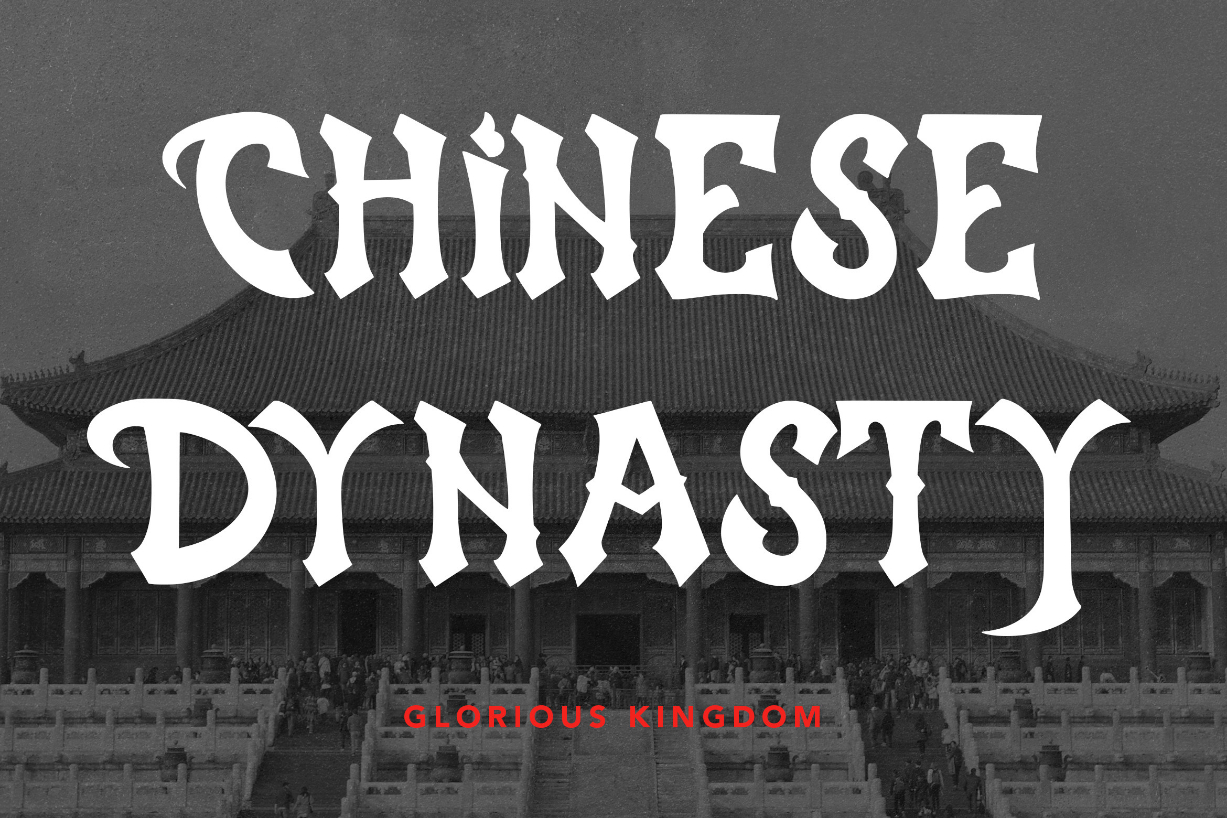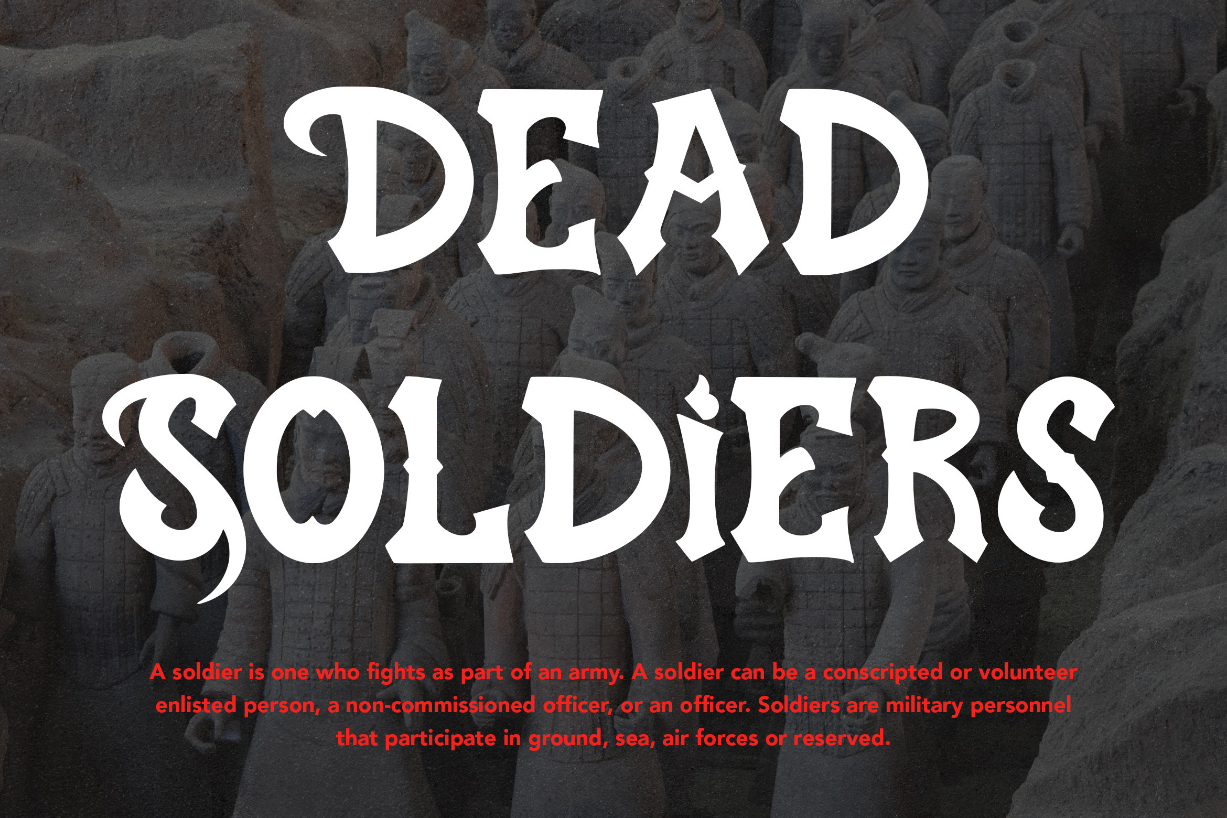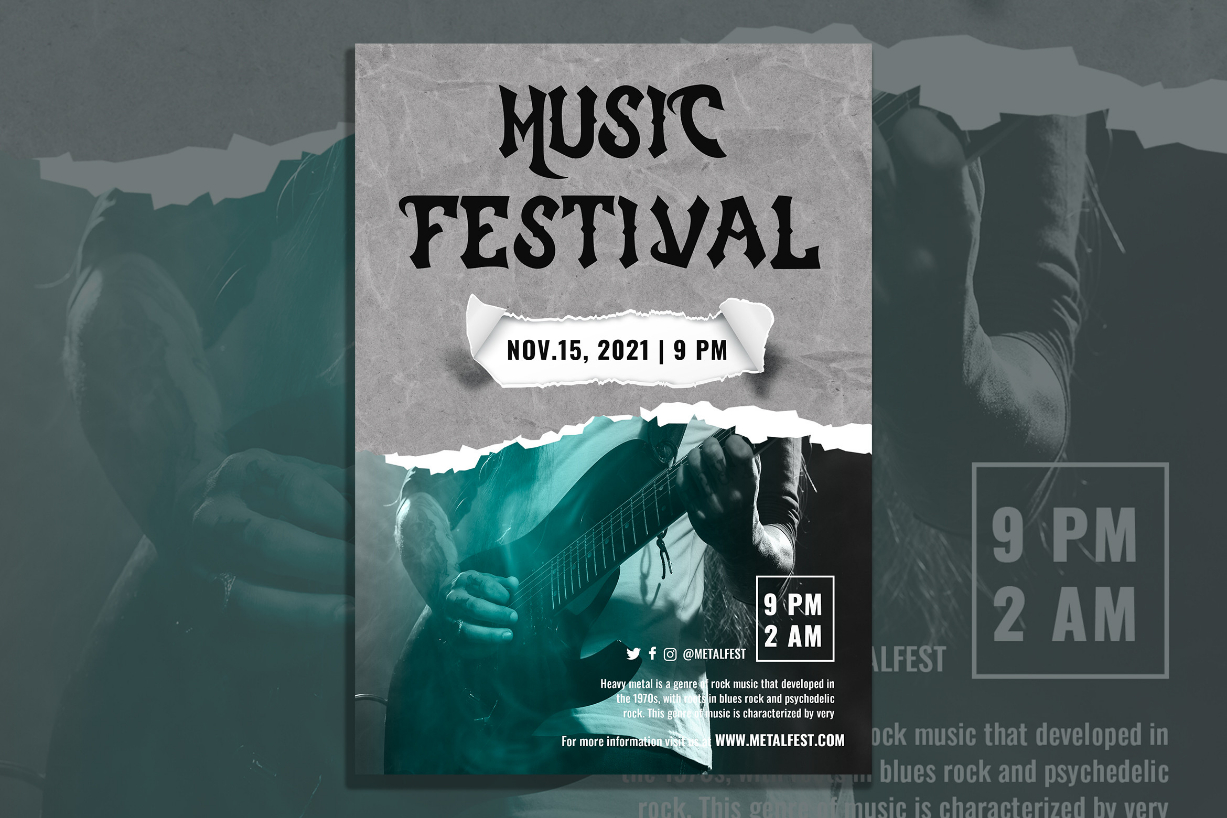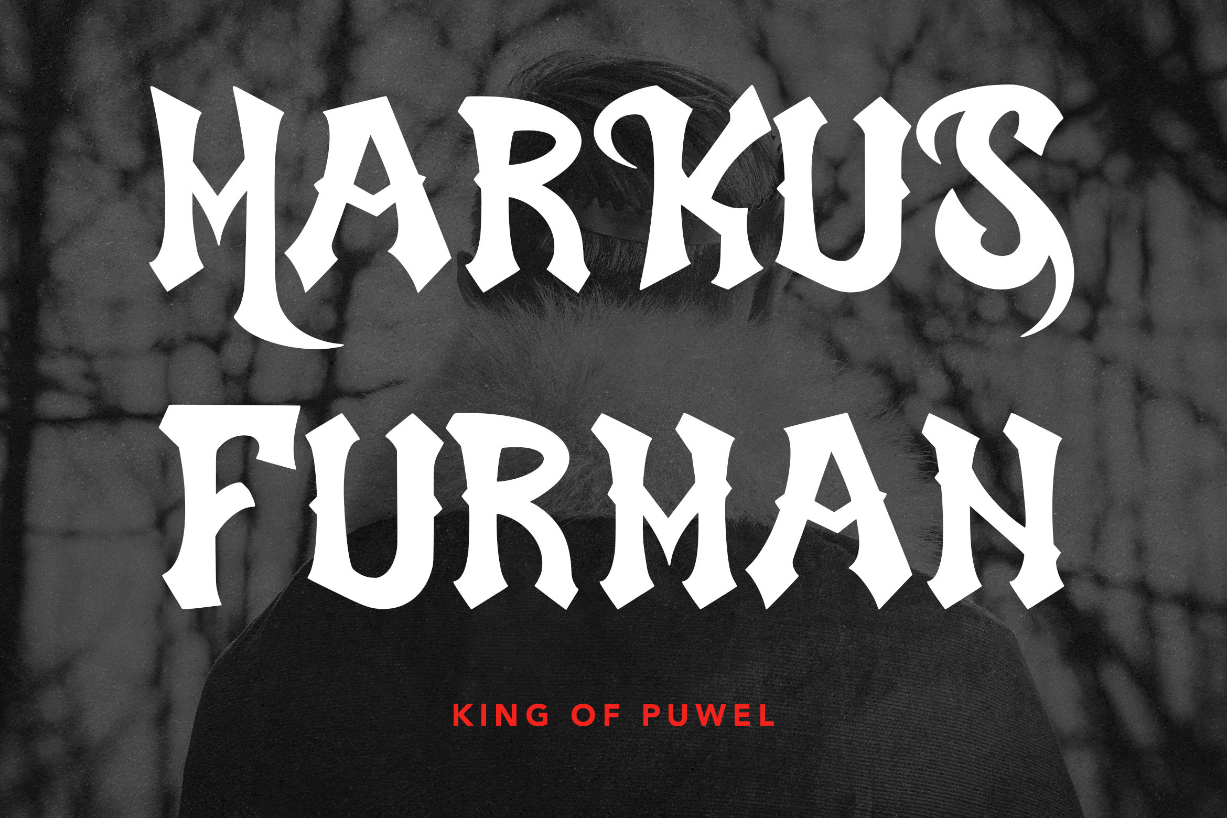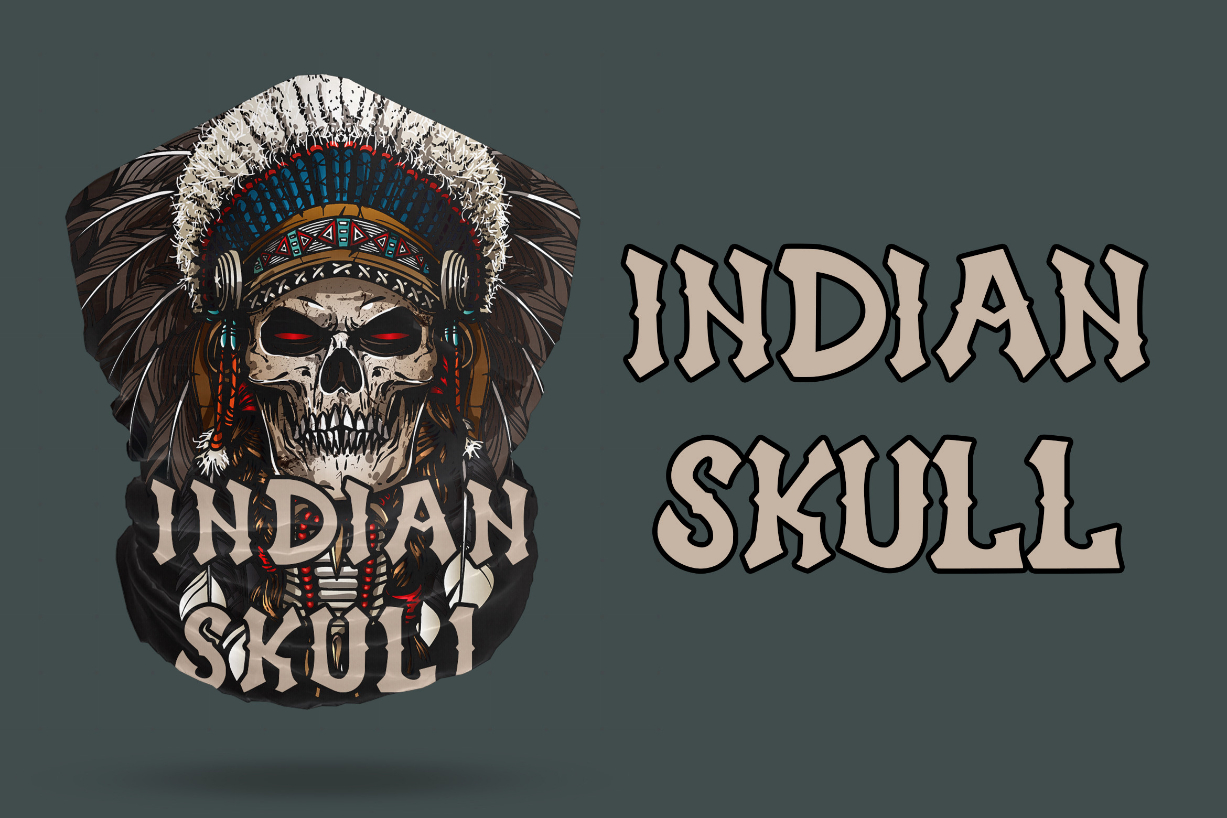
Eternal Emperor Font
About Eternal Emperor Font
Eternal Emperor is a bold and thick lettered blackletter font. Add it confidently to your projects, and you will love the results.